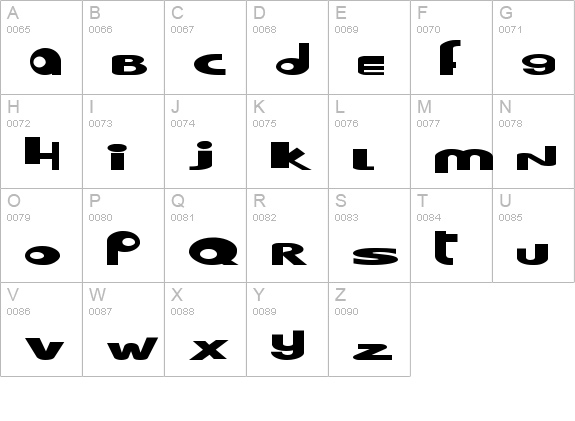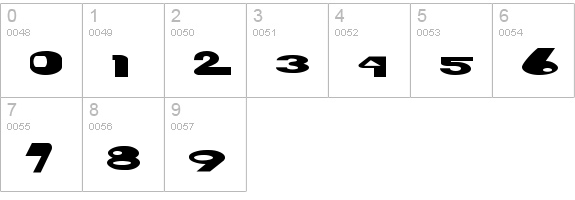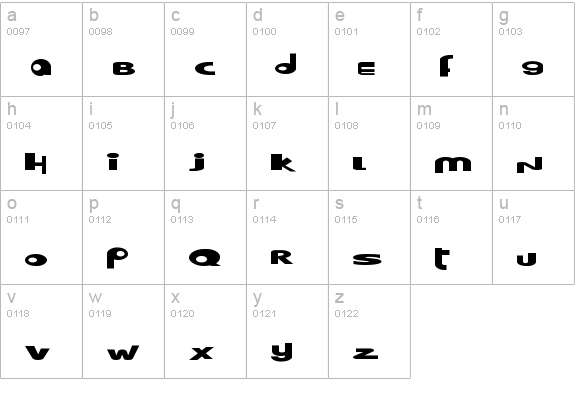
Hooper dooper Font Details
The Hooper Dooper font is a whimsical and playful typeface that adds a touch of fun to any design project. With its unique and creative letterforms, this font is perfect for adding a quirky and lighthearted feel to your designs. Whether you're working on a poster, greeting card, or branding project, Hooper Dooper is sure to make your text stand out. And the best part? Hooper Dooper is available for free download at FontsMarket.com. Simply head over to the website to grab this delightful font and start incorporating it into your designs today. Don't miss out on the opportunity to add a touch of whimsy to your projects with Hooper Dooper font - download it for free now!